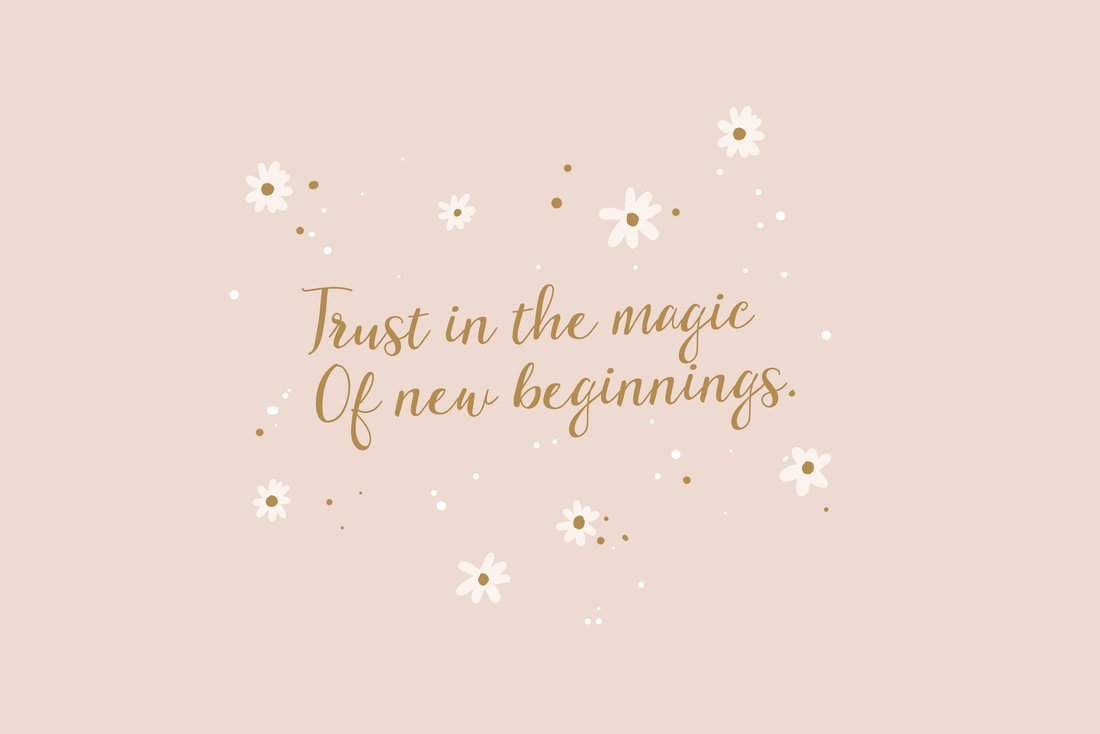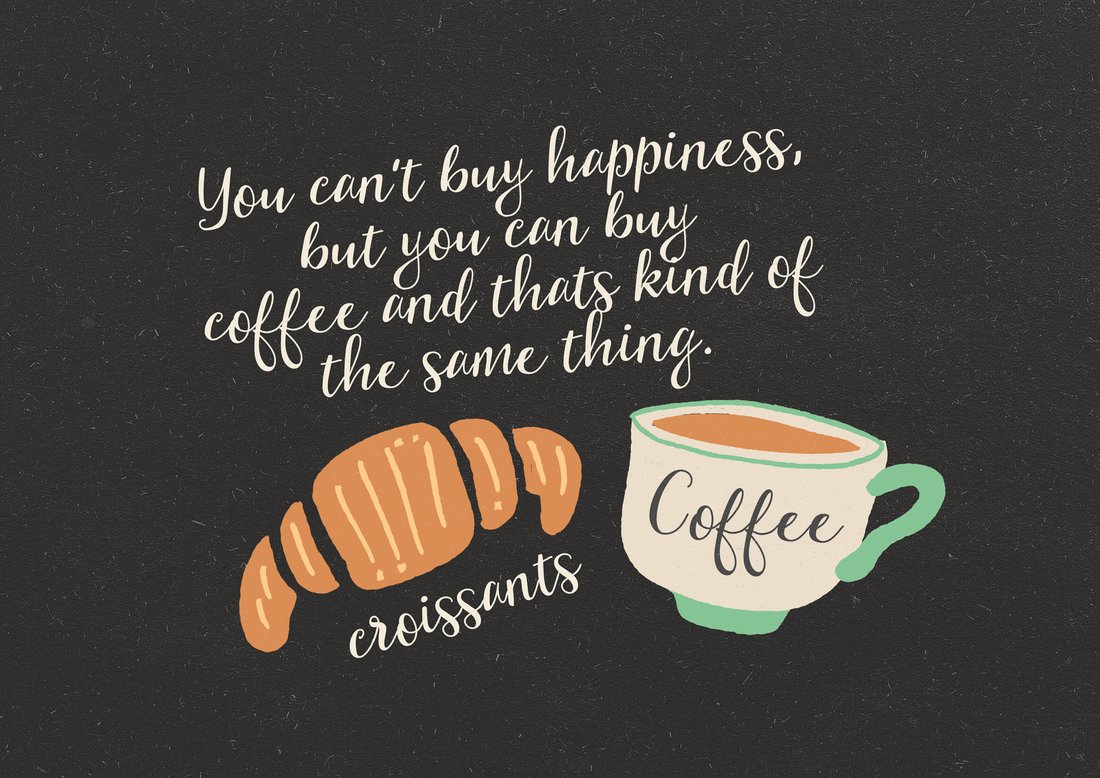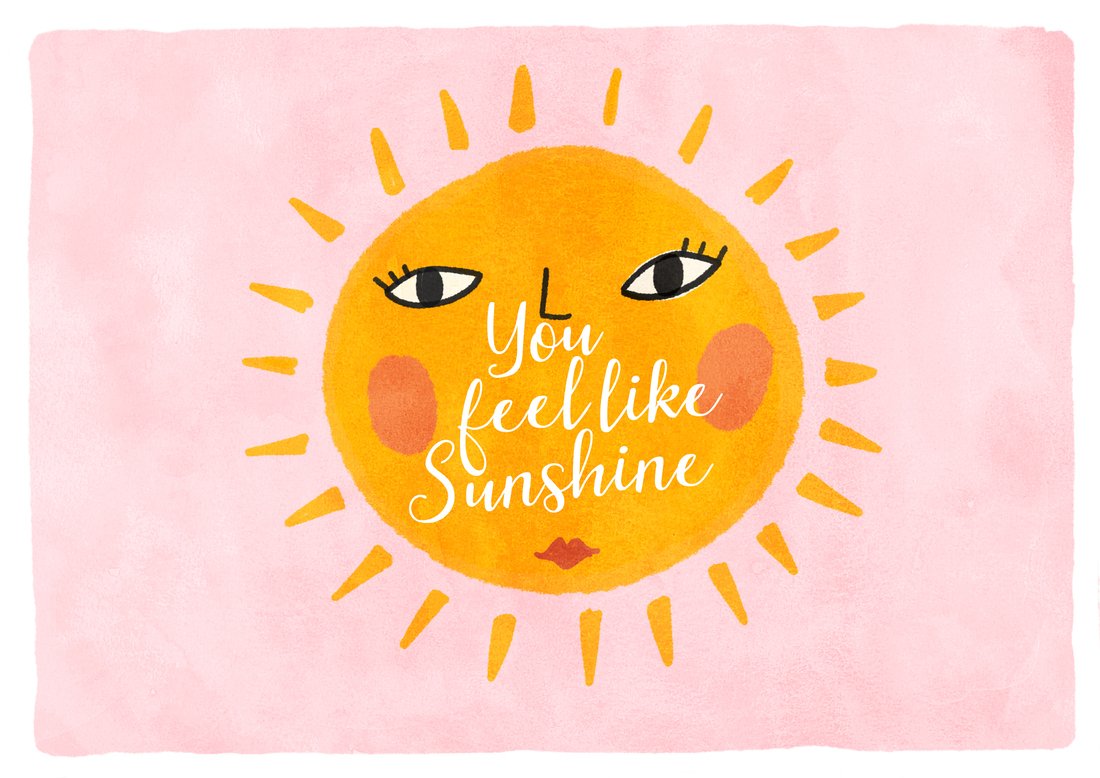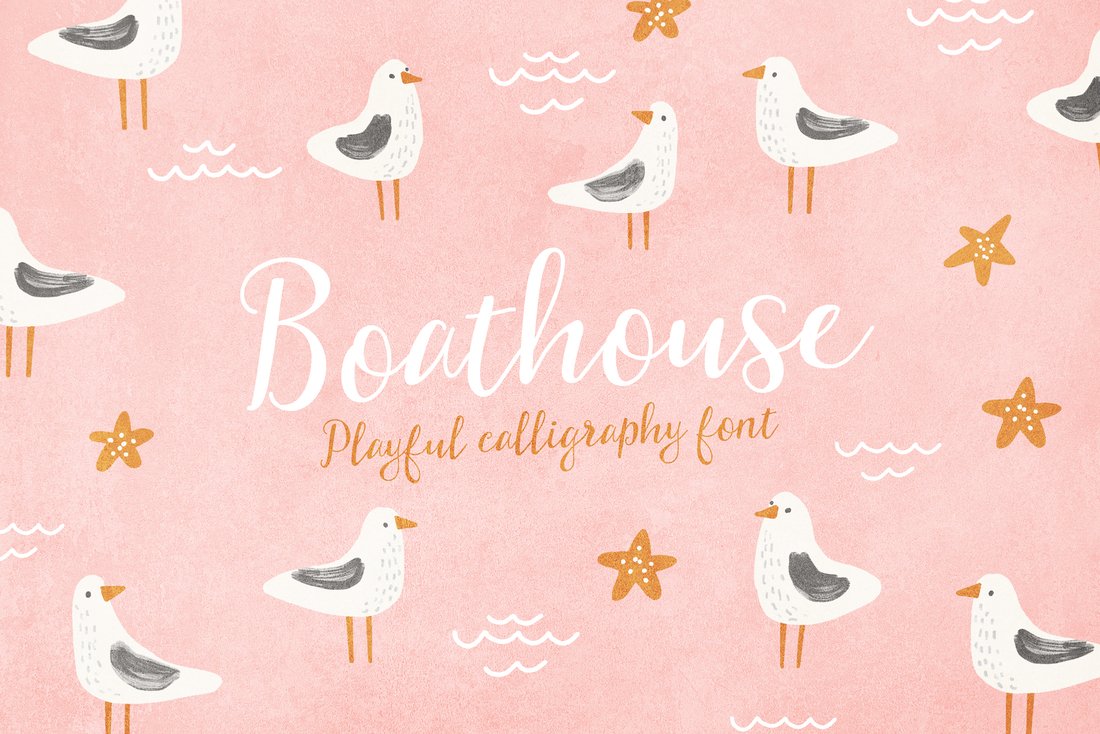
Fontbox Boathouse Font (From the Fontbox)
Fontbox Boathouse Font (From the Fontbox) by Nicky Laatz
Another oldie but goodie :) The Boathouse Font comes from the Fontbox Font collection. Bouncy playful and perfect for greetings, illustrations quotes and covers that need a casual playful look.Happy Creating!